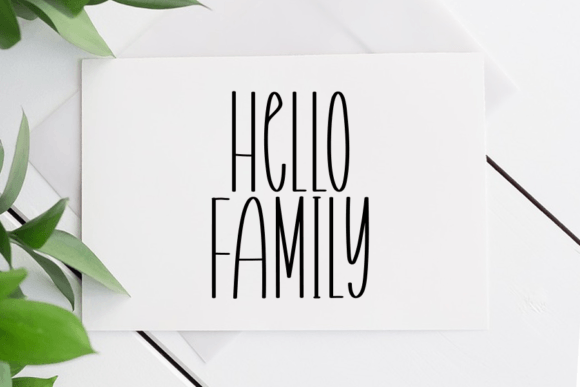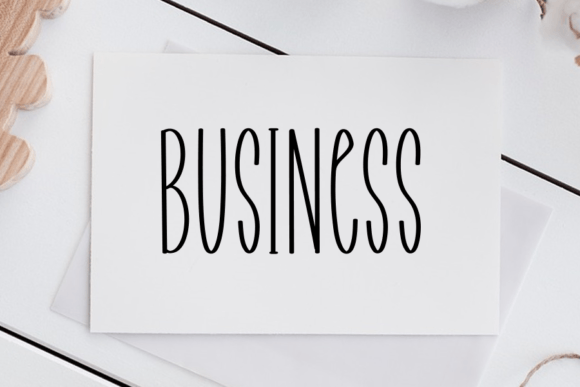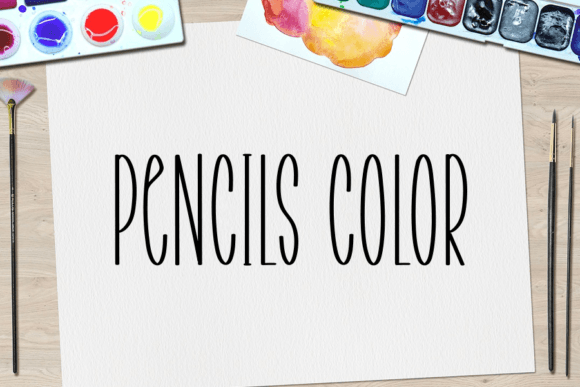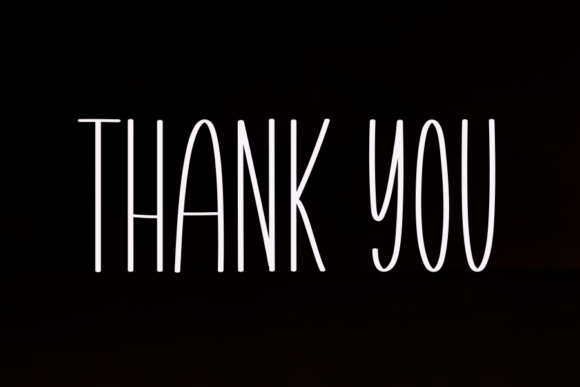
Introducing Beach Vintage Font: A Simple yet Versatile Handwritten Font
Are you looking for a font that can add a touch of simplicity and naturalness to your design projects? Look no further than Beach Vintage Font! This beautiful handwritten font is perfect for a wide range of applications, from greeting cards to headlines, and is sure to become a staple in your design toolkit.
What is Beach Vintage Font?
Beach Vintage Font is a simple handwritten font that exudes a sense of carefree elegance. Its unique charm lies in its effortless, flowing strokes that evoke the feeling of a warm summer breeze. This font is perfect for designers and crafters who want to add a personal touch to their projects without overwhelming the senses.
Key Features of Beach Vintage Font
- Simple and Handwritten: Beach Vintage Font is a handwritten font that boasts a simple, uncomplicated design. Its clean lines and flowing strokes make it easy to read and visually appealing.
- Versatile: This font is incredibly versatile and can be used for a wide range of applications, including greeting cards, headlines, posters, and more.
- Natural Feel: Beach Vintage Font has a natural, effortless feel that makes it perfect for designs that require a personal touch.
Uses for Beach Vintage Font
Beach Vintage Font is perfect for a variety of design projects, including:
- Greeting Cards: Add a personal touch to your greeting cards with Beach Vintage Font. Its simple, handwritten design makes it perfect for birthdays, weddings, and other special occasions.
- Headlines: Use Beach Vintage Font to create eye-catching headlines for your blog posts, articles, or social media posts.
- Posters: Create beautiful posters for events, promotions, or advertisements using Beach Vintage Font.
- Branding: Use Beach Vintage Font to create a unique and recognizable brand identity for your business or product.
Benefits of Using Beach Vintage Font
There are many benefits to using Beach Vintage Font in your design projects, including:
- Unique Design: Beach Vintage Font has a unique, handwritten design that sets it apart from other fonts.
- Easily Readable: This font is easy to read, making it perfect for body text and headlines.
- Customizable: Beach Vintage Font can be customized to fit your design needs, including adjusting the font size, color, and style.
Tips for Using Beach Vintage Font
Here are a few tips for using Beach Vintage Font in your design projects:
- Use it Sparingly: Beach Vintage Font is best used sparingly to add a touch of elegance to your design. Avoid overusing it, as it can become overwhelming.
- Pair it with Other Fonts: Beach Vintage Font pairs well with other fonts, including serif and sans-serif fonts. Experiment with different font combinations to find the perfect look for your design.
- Adjust the Font Size: Adjust the font size to fit your design needs. Beach Vintage Font looks great in large and small sizes.
Beach Vintage Font is a beautiful, simple handwritten font that is perfect for a wide range of design projects. Its unique charm, versatility, and natural feel make it a great addition to any design toolkit. Whether you’re a designer, crafter, or DIY enthusiast, Beach Vintage Font is sure to become a favorite font in your collection.